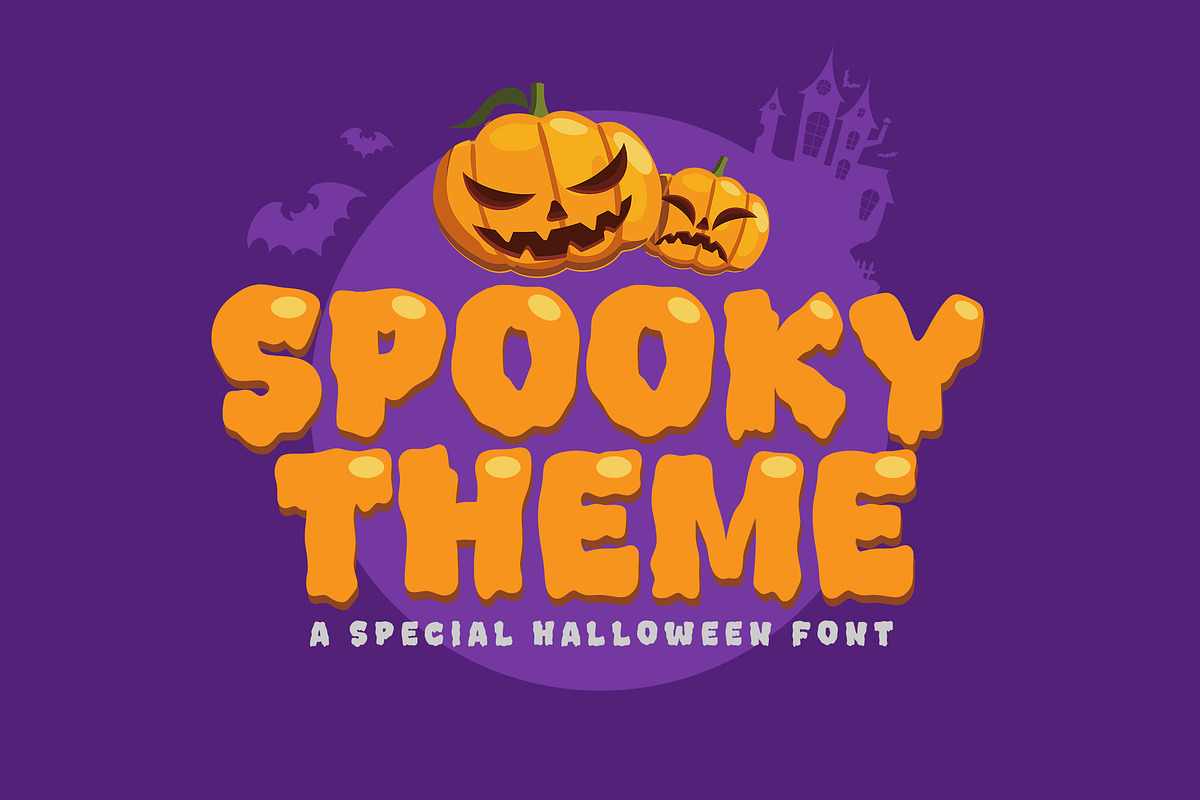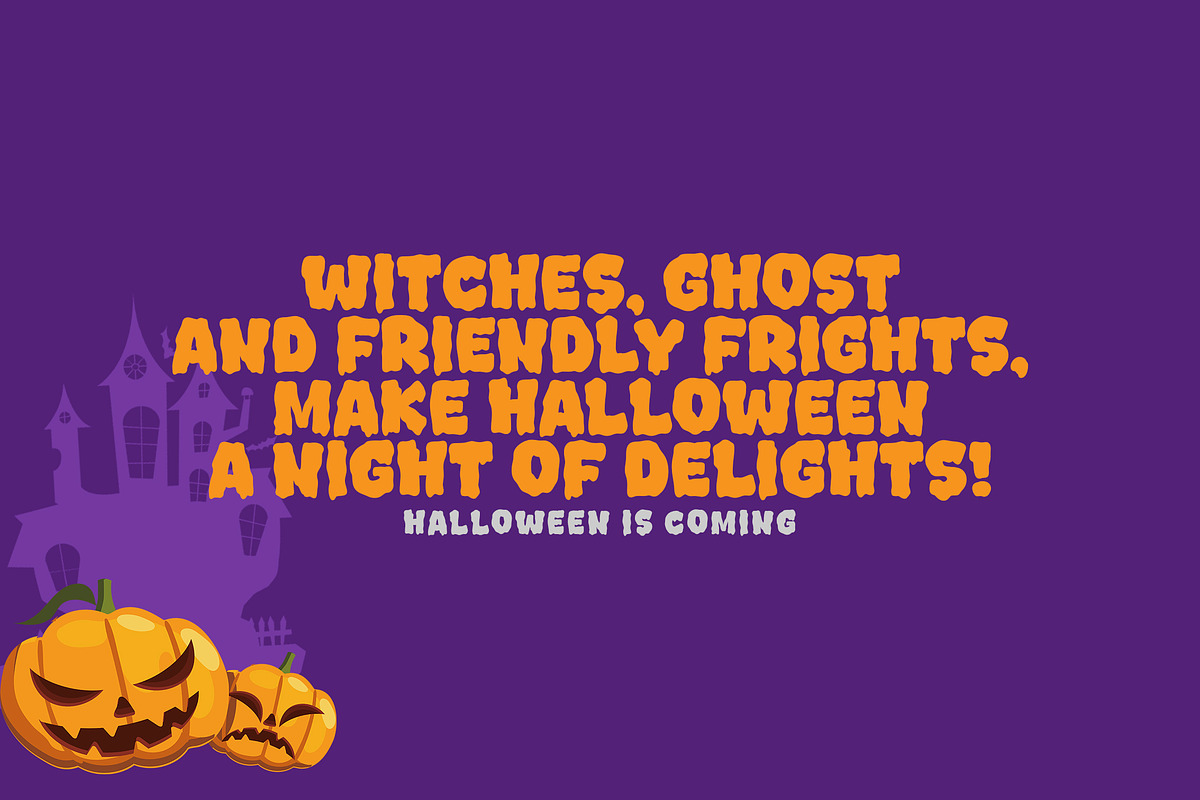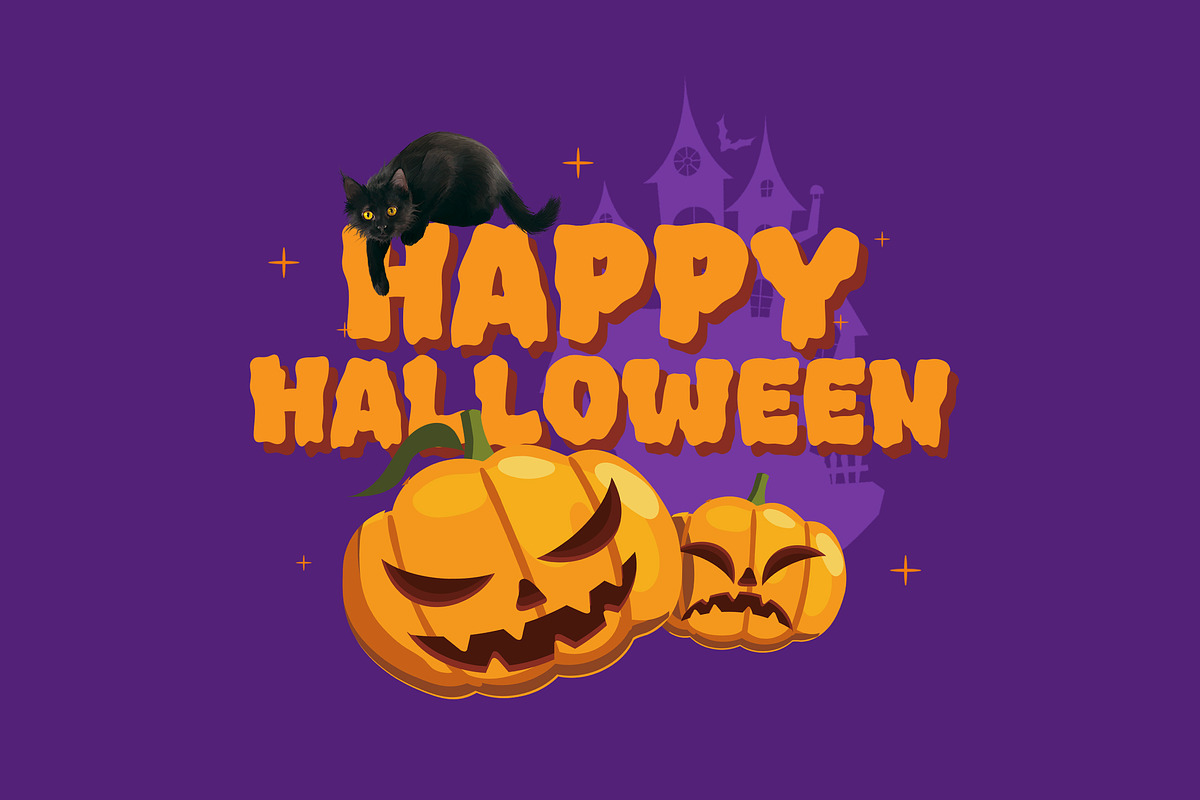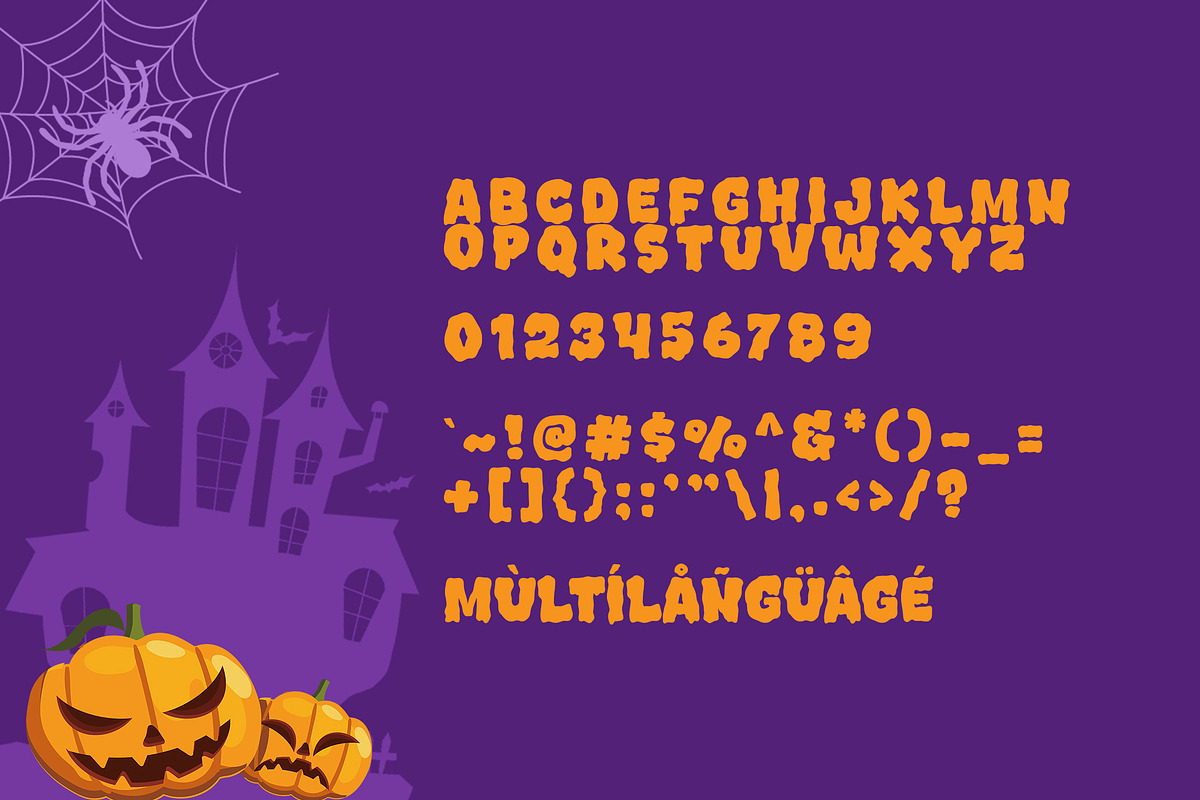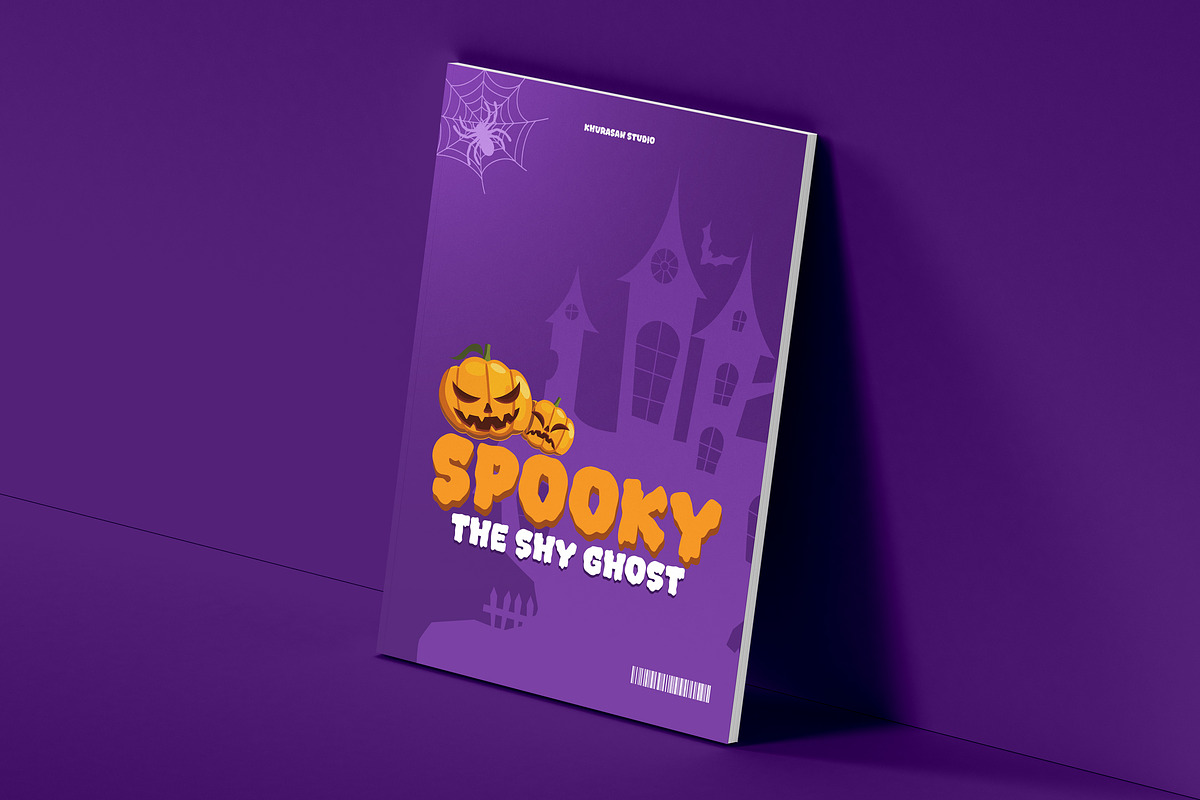
Spooky Theme
Ready to make your Halloween designs more alive, spooky, and stylish? Spooky Theme is a modern horror-themed display font, crafted to bring a mysterious vibe while keeping your design trendy and eye-catching. Spooky Theme combines scary and stylish, making your designs not only terrifying but also unforgettable! Giving you the freedom to create without limits.
Spooky Theme font suitable for logo, branding, greeting card, poster and any design that you create.